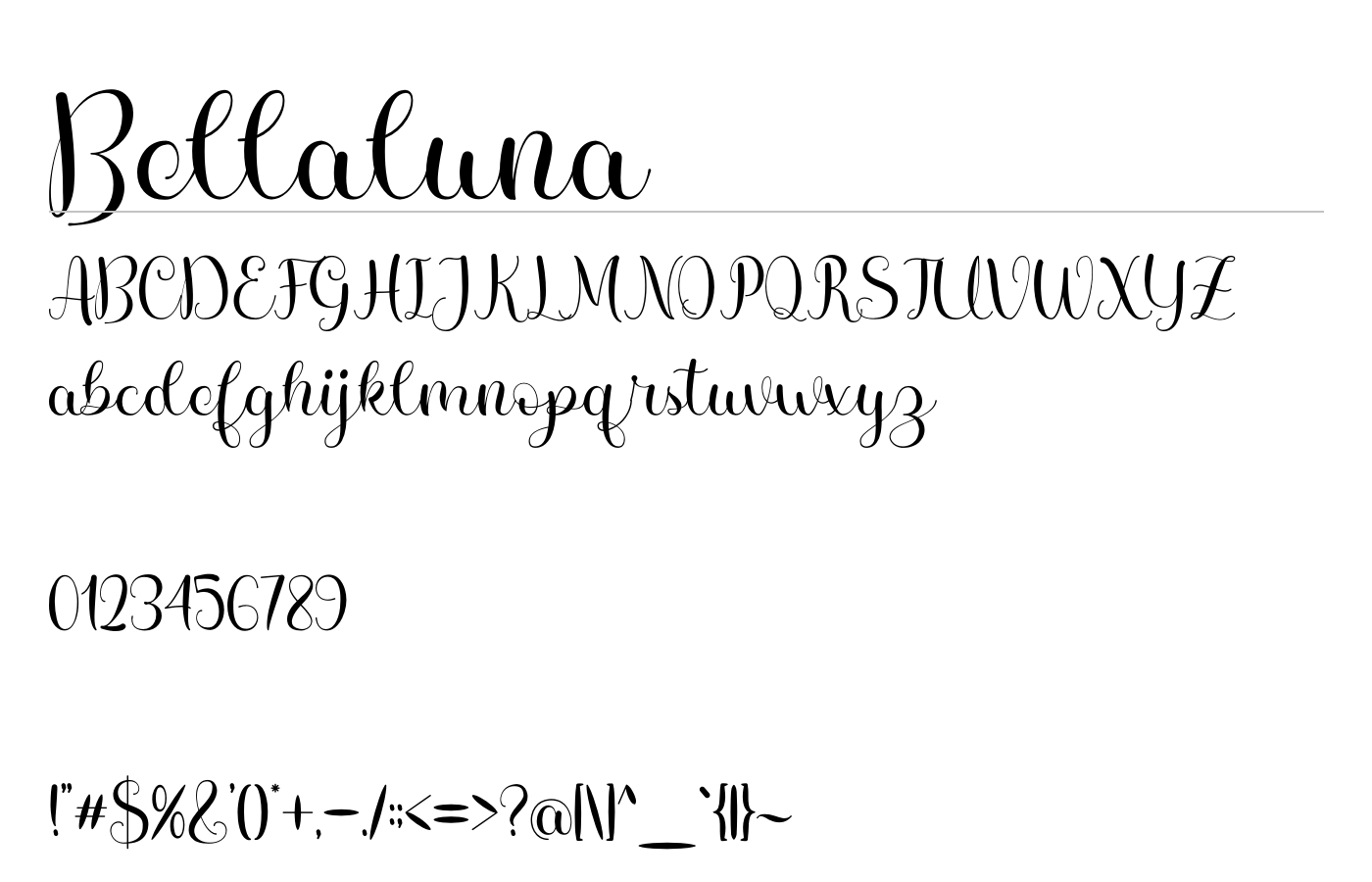
Bellaluna is an elegant, Script-style font with a delicate and flowing design that combines thin, graceful strokes with playful swashes and curls. Its slender letterforms and refined details make it ideal for projects that seek a feminine, whimsical, or romantic touch, such as invitations, branding, and stylish headlines. This font works beautifully where a sophisticated yet friendly personality is desired, adding a charming and artistic flair to any design.
Bellaluna Font
About Bellaluna Font
| Font family | Bellaluna Font |
| Designer | Abduhan Fikhri |
| Trademark | Doehantz Studio |